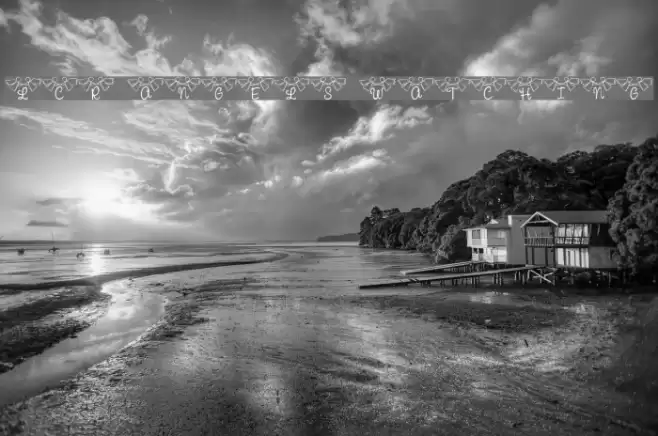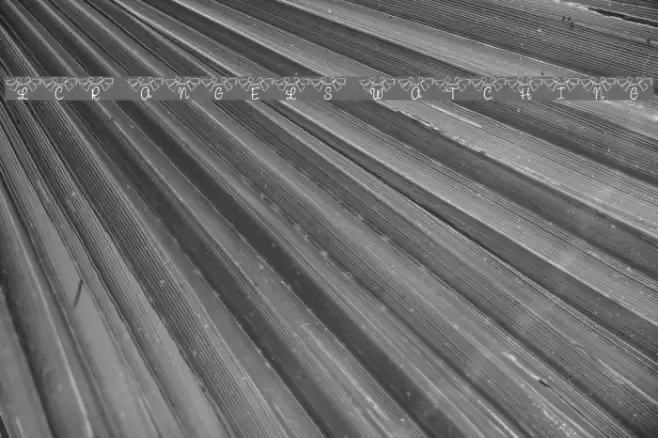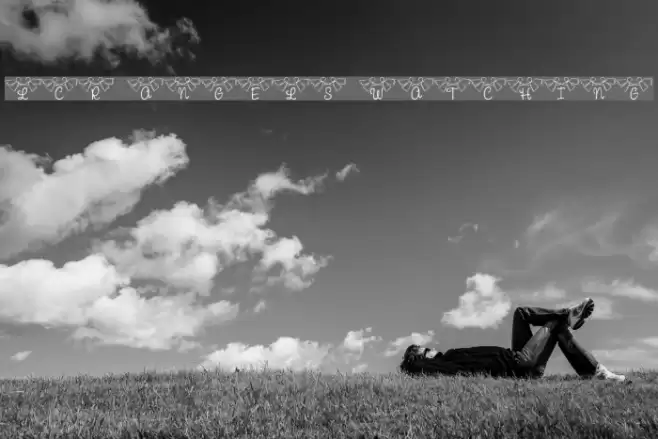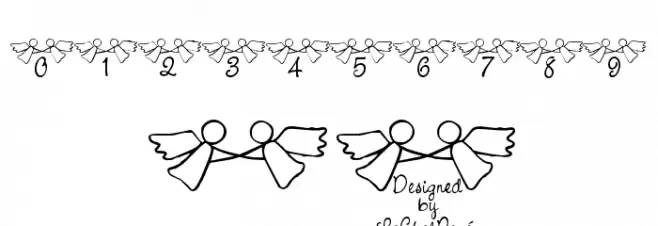
LCR Angels Watching Font
LCR Angels Watching Description
This whimsical font features each character adorned with a playful angel motif, giving it a unique and decorative appearance. The letters are crafted in a simple, hand-drawn style, with each character seamlessly integrated into the angel design. The uppercase and lowercase letters maintain a consistent style, with the angels' wings and halos adding a charming touch. Numbers are also included, following the same angelic theme. This font is perfect for projects that require a touch of whimsy and creativity, such as children's books, greeting cards, or festive decorations. The overall design is light-hearted and imaginative, making it ideal for conveying a sense of joy and playfulness.
A whimsical font with each character adorned by playful angels from Uncategorized fonts.
- Proposed Projects: Children's books, greeting cards, festive decorations, playful designs.
- Use Case: Headlines, Logos, Decorative text